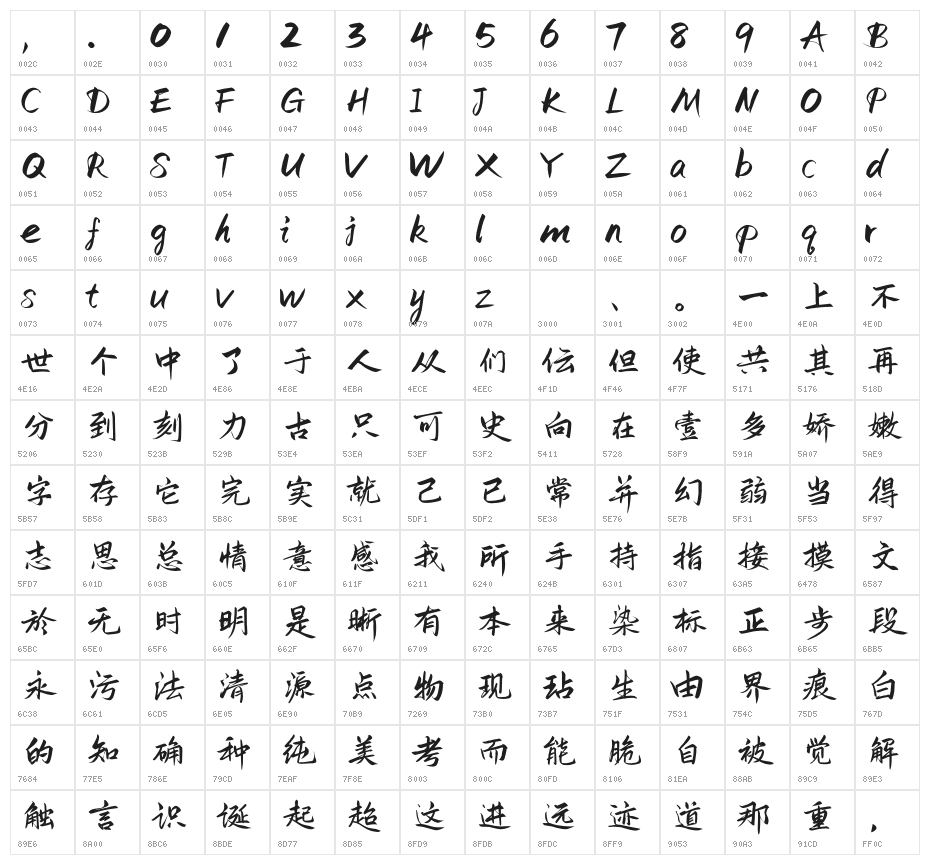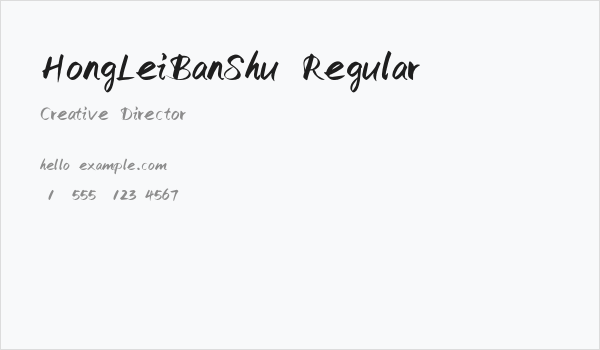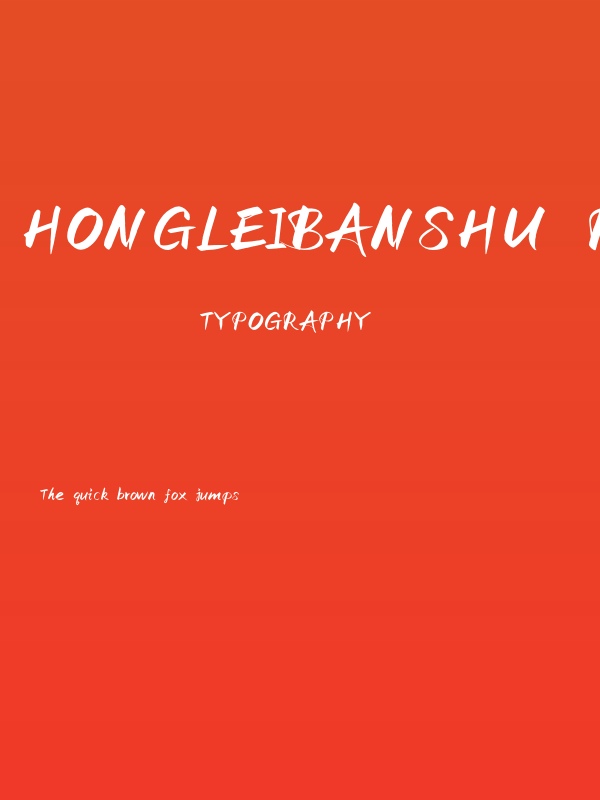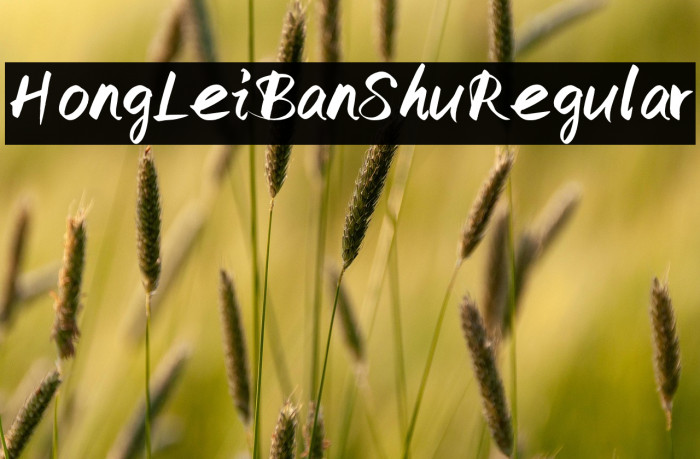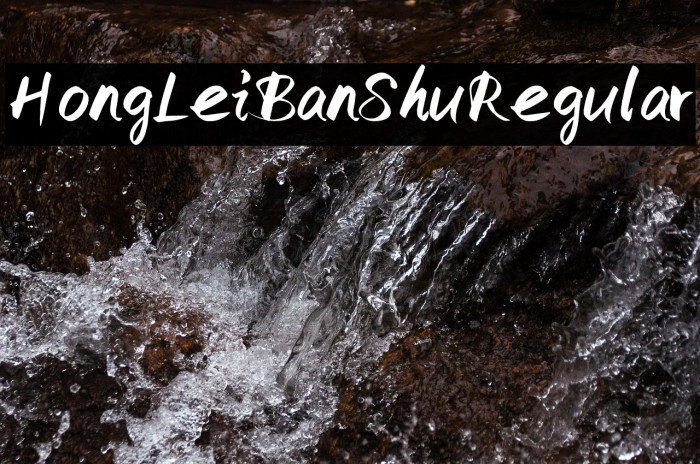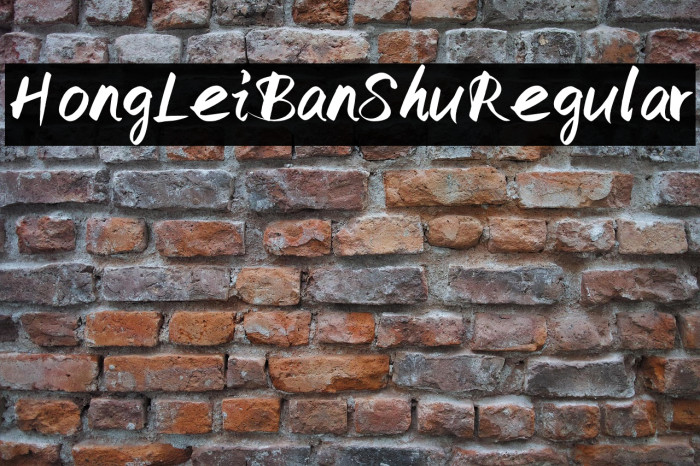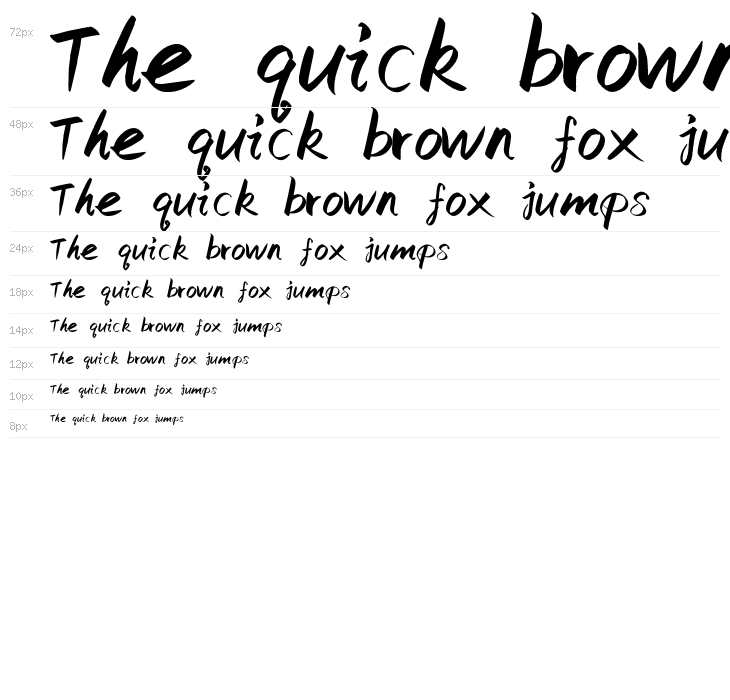
HongLeiBanShu Regular Font
HongLeiBanShu Regular Description
This font features a dynamic and expressive style, characterized by its brush-like strokes and fluid movement. The letters exhibit a sense of motion, with varying thickness that adds a lively and artistic flair. The uppercase and lowercase characters maintain a consistent flow, while the numerals and special characters complement the overall aesthetic. The font's design is reminiscent of calligraphy, making it suitable for projects that require a personal and artistic touch.
| Use Case | Logos, Headlines, Artistic projects |
| Proposed Projects | Ideal for artistic projects, invitations, branding, and creative posters. |